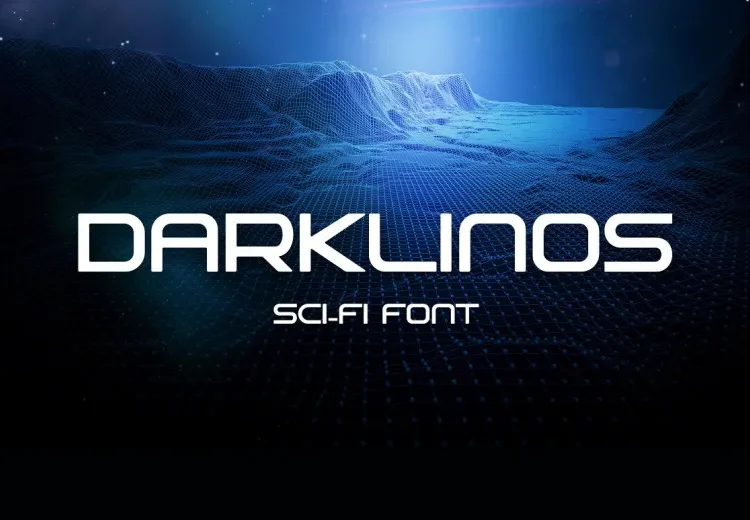
Darklinos Font
Darklinos is a sci-fi display font that blends elegance, beauty, and modernity, making it a versatile choice for a wide range of creative applications. Its sleek and futuristic design adds a distinctive touch, whether used for personal or professional projects.
Perfect for creating unique stationary signatures, wedding logos, and typography for magazines, Darklinos seamlessly fits into designs that require a sophisticated and contemporary edge. Its clean lines and futuristic vibe also make it ideal for book covers, website headers, clothing branding, and packaging designs.
In addition, Darklinos is particularly suited for projects that balance both feminine and masculine qualities, making it an excellent choice for fashion-related branding or edited designs that aim to captivate with dual appeal.